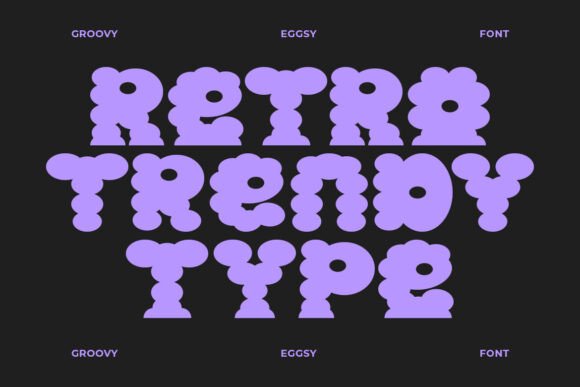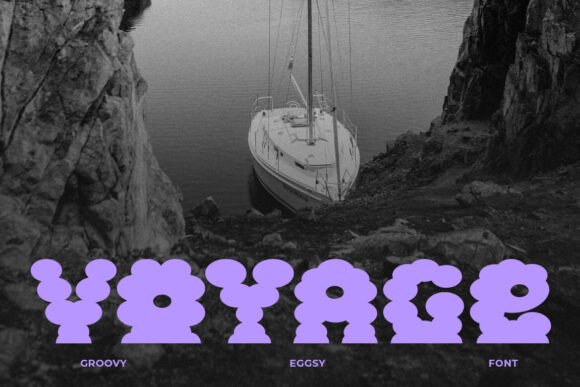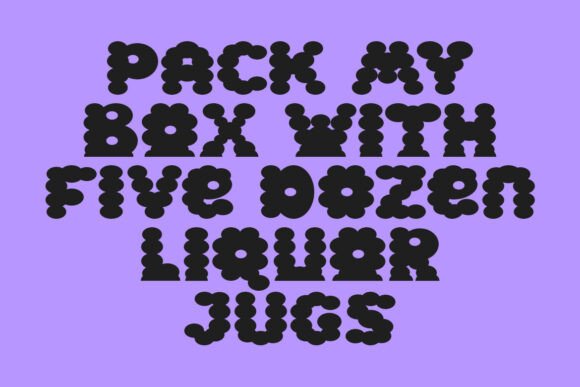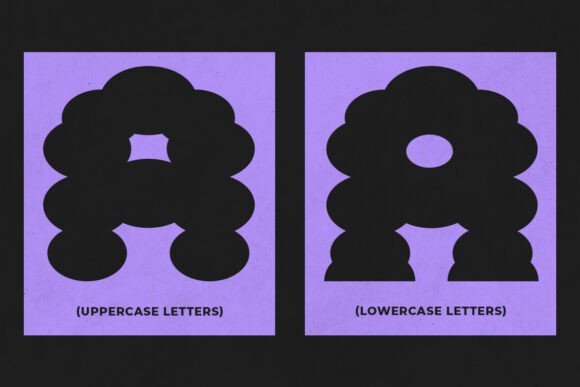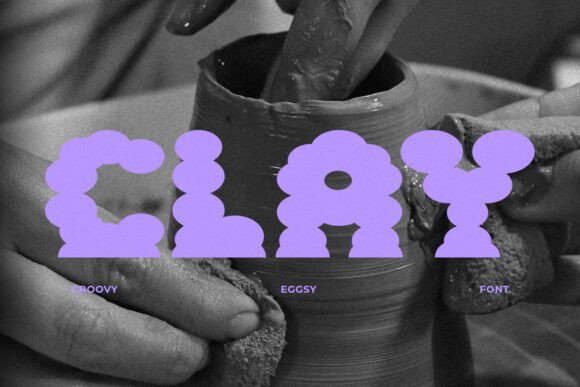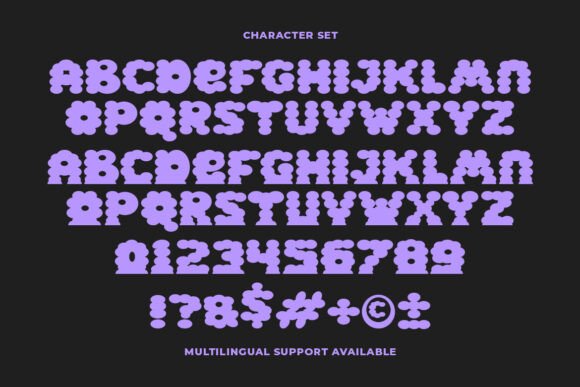
Groovy Eggsy Font: Add a Touch of Whimsy to Your Designs
Are you looking for a font that can add a playful and fun touch to your designs? Look no further than the Groovy Eggsy font. This bold decorative font is perfect for projects that require a unique and creative element. With its soft curves and round appearance, reminiscent of a cloud, Groovy Eggsy is sure to make your text stand out.
What is Groovy Eggsy Font?
Groovy Eggsy is a bold decorative font with a unique round appearance reminiscent of a cloud. The soft curves and playful design of this font make it perfect for projects that require a fun and whimsical touch. Its boldness adds a striking element to any text, making it stand out with a touch of creativity and charm.
Key Features of Groovy Eggsy Font
- Unique Round Appearance: The font has a distinctive round shape, similar to a cloud, which sets it apart from other fonts.
- Soft Curves: The soft curves of the font give it a playful and whimsical feel, making it perfect for designs that require a fun touch.
- Bold and Striking: The boldness of the font adds a striking element to any text, making it stand out from the rest.
- Highly Versatile: Groovy Eggsy font can be used for a wide range of projects, from digital designs to print materials.
Uses of Groovy Eggsy Font
Groovy Eggsy font is perfect for designers and crafters who want to add a touch of whimsy to their projects. Here are some of the many uses of this font:
- Digital Designs: Use Groovy Eggsy font to create fun and playful digital designs, such as social media graphics, blog headers, and more.
- Print Materials: The font is perfect for print materials, such as posters, flyers, brochures, and business cards.
- Crafting Projects: Groovy Eggsy font can be used for various crafting projects, such as card making, scrapbooking, and journaling.
- Branding and Packaging: The font can be used for branding and packaging designs, such as product labels and packaging materials.
Tips for Using Groovy Eggsy Font
Here are some tips for using Groovy Eggsy font effectively:
- Use it Sparingly: While Groovy Eggsy font is bold and striking, it’s best to use it sparingly to avoid overwhelming the design.
- Pair it with Other Fonts: Pair Groovy Eggsy font with other fonts to create a unique and interesting contrast.
- Experiment with Colors: Experiment with different colors to find the perfect combination that works with Groovy Eggsy font.
Groovy Eggsy font is a unique and creative font that can add a touch of whimsy to any design. With its soft curves, boldness, and versatility, it’s perfect for designers and crafters who want to create fun and playful designs. Whether you’re working on digital designs, print materials, or crafting projects, Groovy Eggsy font is sure to make your text stand out.